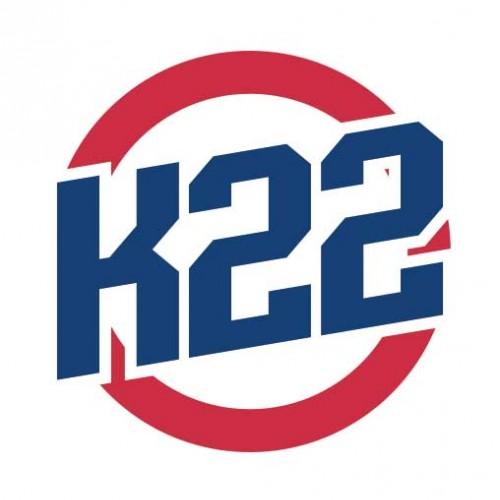
Ballymoss is a wood type inspired typeface in 3 weights: Regular, Medium and Heavy. Upper and lower case, numerals and punctuation. This is the perfect display font for retro style woodblock print posters.